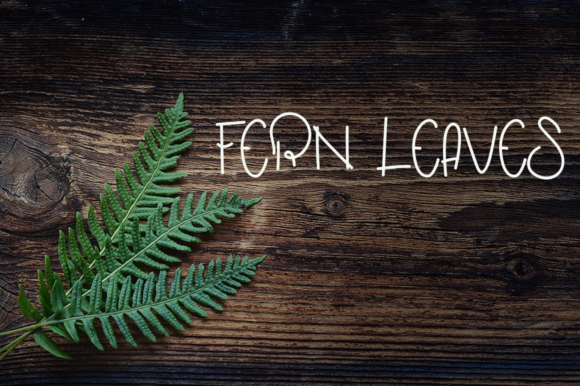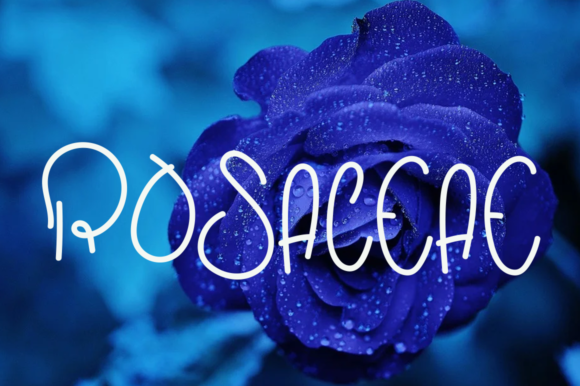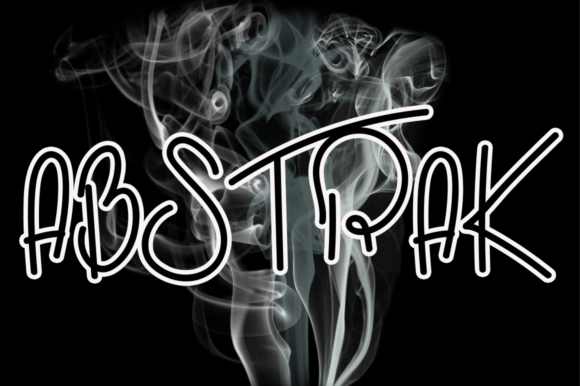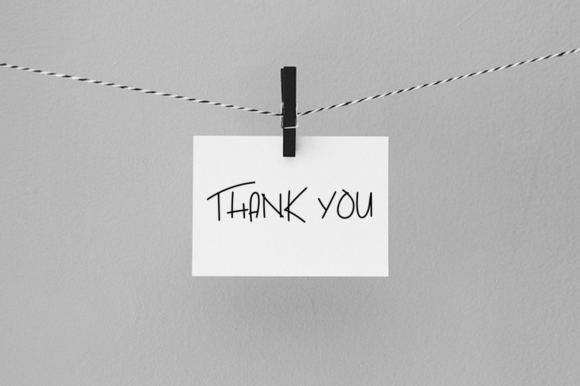
Discover the Charm of Farmhouse Font: Elevate Your Designs with a Simple, Thin, and Sweet Handwritten Style
Are you a designer or crafter looking for a font that can add a touch of warmth and personality to your projects? Look no further than the Farmhouse Font. This beautiful, handwritten font is incredibly versatile and can be used in a wide range of designs, from rustic and country-themed projects to modern and minimalist ones. In this article, we’ll explore the characteristics of the Farmhouse Font, its uses, and why it’s a great addition to any designer’s or crafter’s toolkit.
Farmhouse Font is a simple, thin, and sweet handwritten font that’s perfect for adding a personal touch to your designs. Its delicate lines and curves give it a charming, homespun feel that’s reminiscent of handwritten notes and letters. The font’s simplicity and elegance make it easy to read and use in a variety of contexts, from headings and titles to body text and captions.
Characteristics of Farmhouse Font
So, what makes Farmhouse Font so special? Here are some of its key characteristics:
- Simple and thin: Farmhouse Font has a delicate, uncomplicated design that’s perfect for creating clean and minimalist designs.
- Sweet and charming: The font’s handwritten style gives it a warm, friendly feel that’s perfect for creating designs that are approachable and inviting.
- Versatile: Farmhouse Font can be used in a wide range of designs, from rustic and country-themed projects to modern and minimalist ones.
- Easy to read: The font’s clear and simple design makes it easy to read, even at small sizes.
Uses of Farmhouse Font
Farmhouse Font is incredibly versatile, and can be used in a wide range of designs and projects. Here are some ideas to get you started:
- Country-themed designs: Farmhouse Font is perfect for creating rustic and country-themed designs, such as signs, posters, and invitations.
- Wedding and event designs: The font’s sweet and charming style makes it perfect for creating wedding and event designs, such as invitations, programs, and menus.
- Branding and packaging: Farmhouse Font can be used to create beautiful and eye-catching branding and packaging designs, such as labels, logos, and business cards.
- Digital designs: The font can also be used in digital designs, such as social media graphics, blog posts, and email newsletters.
Why Choose Farmhouse Font?
So, why should you choose Farmhouse Font for your designs? Here are just a few reasons:
- Unique and distinctive: Farmhouse Font has a unique and distinctive style that’s sure to set your designs apart from the crowd.
- High-quality: Farmhouse Font is a high-quality font that’s designed to produce crisp and clear results, even at small sizes.
Farmhouse Font is a beautiful and versatile handwritten font that’s perfect for adding a touch of warmth and personality to your designs. Its simple, thin, and sweet style makes it easy to read and use in a wide range of contexts, from headings and titles to body text and captions. Whether you’re a designer or crafter looking for a unique and distinctive font to add to your toolkit, or just someone who appreciates the beauty of handwritten fonts, Farmhouse Font is a great choice. So why not give it a try and see how it can elevate your designs to the highest levels?